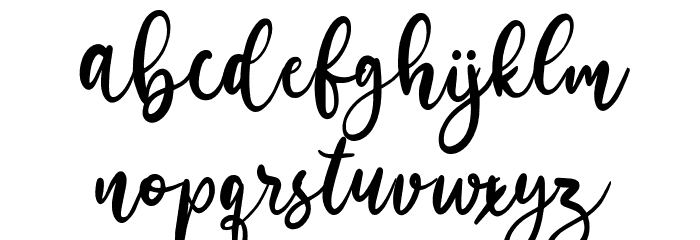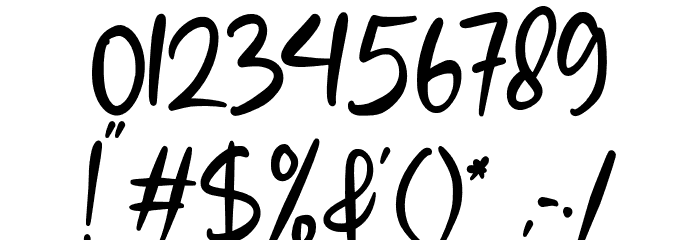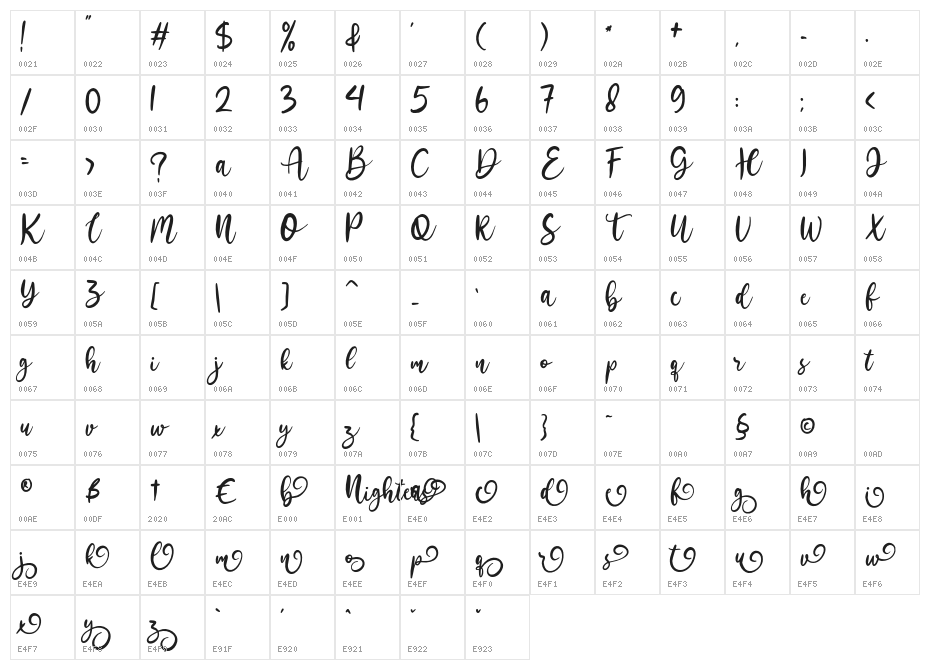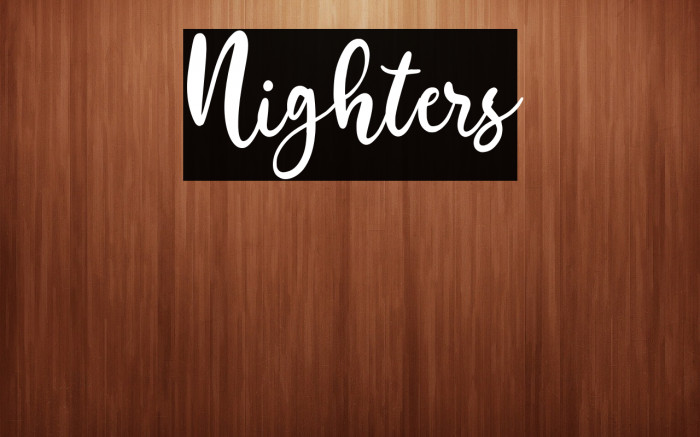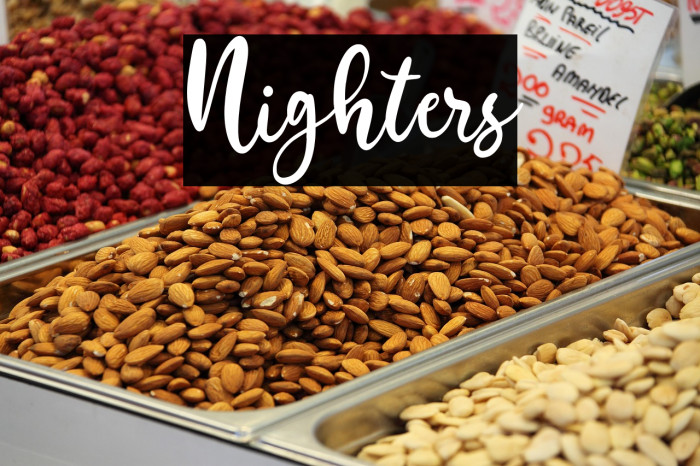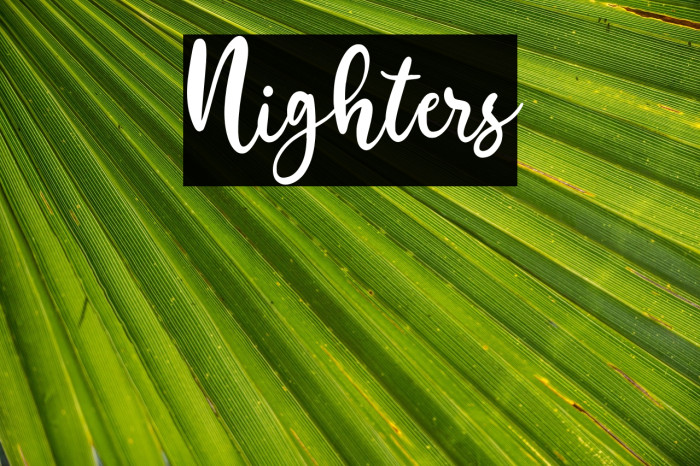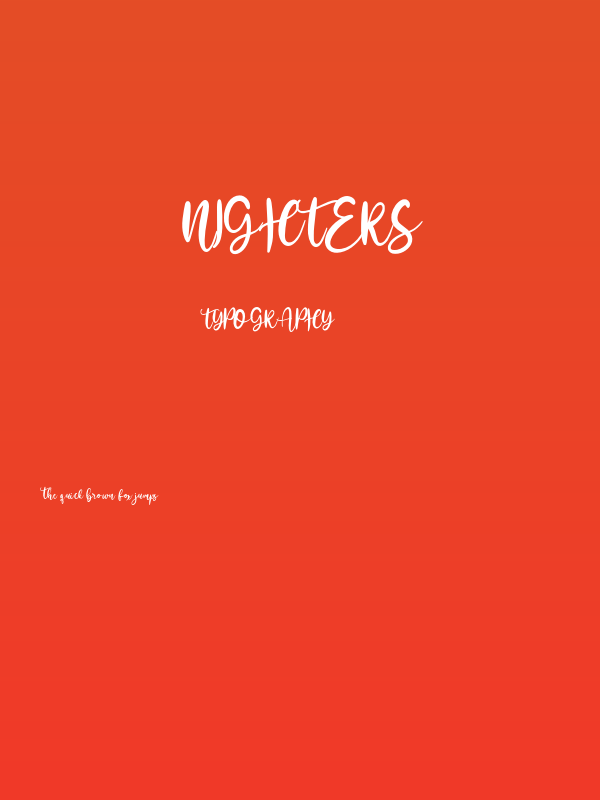
Nighters Font
This font features a lively and dynamic script style with a handwritten appearance. The uppercase letters exhibit a playful and flowing design, characterized by smooth curves and loops that give a sense of movement and elegance. The lowercase letters maintain this fluidity, with some characters extending below the baseline, adding to the font's whimsical charm. The numerals are bold and consistent with the overall style, ensuring readability while maintaining the font's unique character. Special characters are creatively integrated, complementing the font's aesthetic. This font's bold strokes and artistic flair make it suitable for projects that require a personal and expressive touch.
A lively, handwritten script font with bold strokes and playful curves.
- Proposed Projects: Ideal for wedding invitations, greeting cards, branding, and social media graphics.
- Category: Script
- Use Case: Logos, Headlines, Invitations